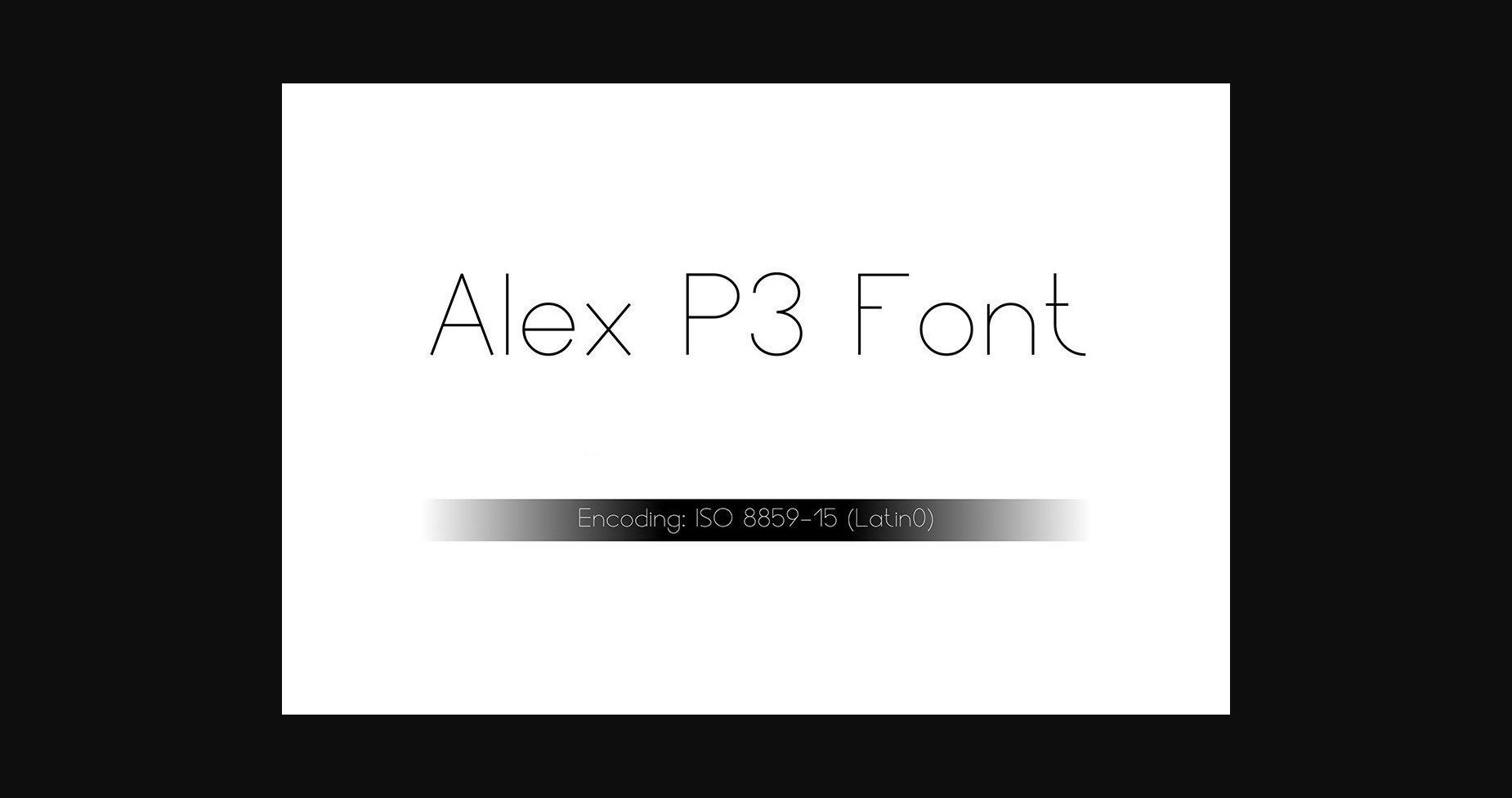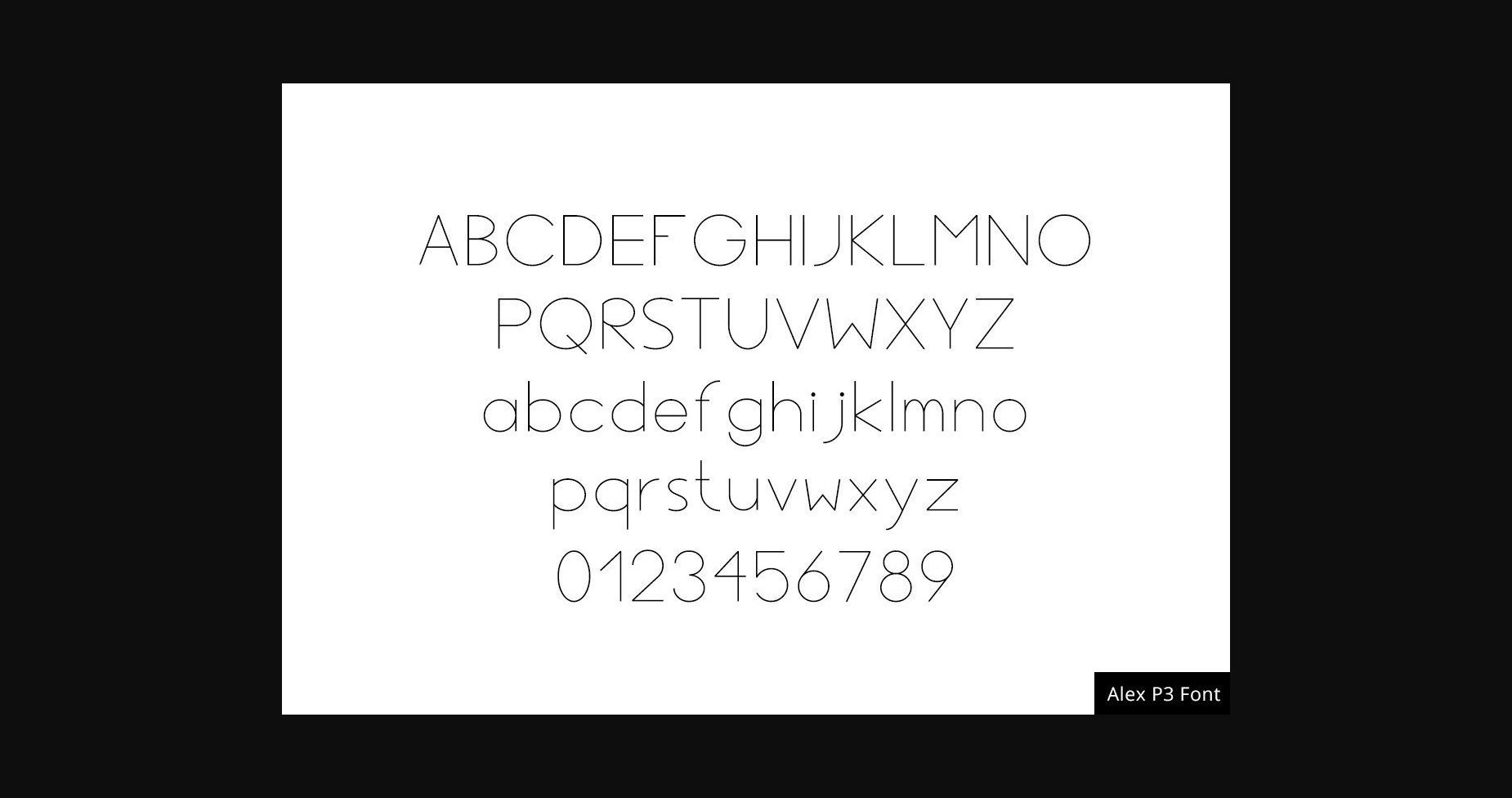
HomeSans Serif FontsAlex P3 Font Sans Serif Fonts Alex P3 Font FacebookXPinterestWhatsApp 1 of 4 ... Alex P3 Font Poster 2... Alex P3 Font Poster 3... Alex P3 Font Poster 4... About Alex P3 Font Alex P3 is a slim and minimalist sans serif font, perfect for creative projects that need impeccable typography! DOWNLOAD NOW People also explored Holiday Garland Font Train Font Glamour Font Christmas Moment Font Malape Dawuana Font Write Fun Funy Font Chems Dean Font Winter Signature Font Authenia 262 0 TagsAlex P3Alex P3 Font Previous articleErgonic FontNext articleGorwel Font LEAVE A REPLY Cancel reply Comment: Please enter your comment! Name:* Please enter your name here Email:* You have entered an incorrect email address! Please enter your email address here Website: Save my name, email, and website in this browser for the next time I comment. Personal Use Free Aragon Personal Use Free Read more about this font Groomer Personal Use Free Read more about this font Airmole Personal Use Free Read more about this font Quickline Personal Use Free Read more about this font BLOG Exploring Font Trends Shaping Communication in the Digital Era Fonts, like all design elements, are subject to trends. They play a crucial role in communicating a brand's personality,... Fonts That Capture the Spirit of New York City Free vs Paid Fonts: Why Investing in Premium Fonts Is Worth It Where to Buy American Fonts Online in 2024